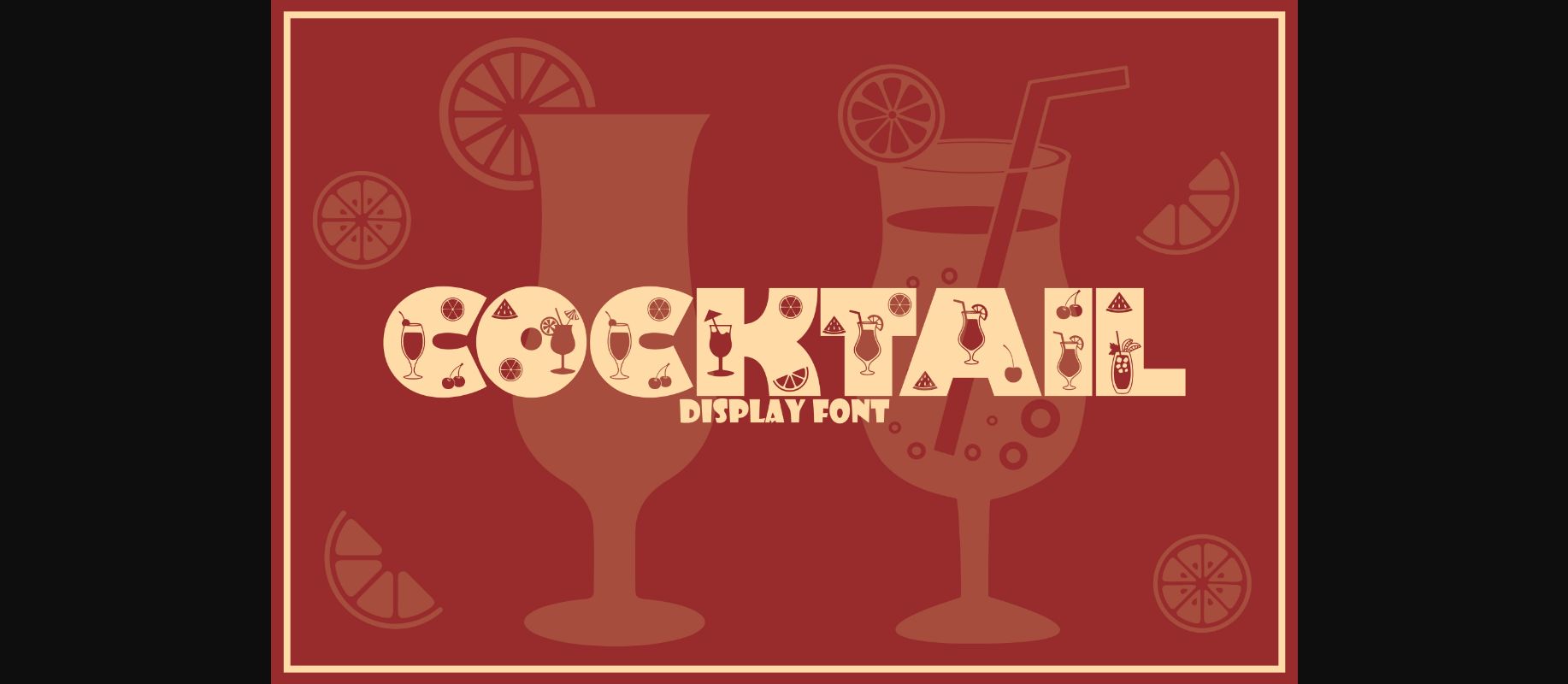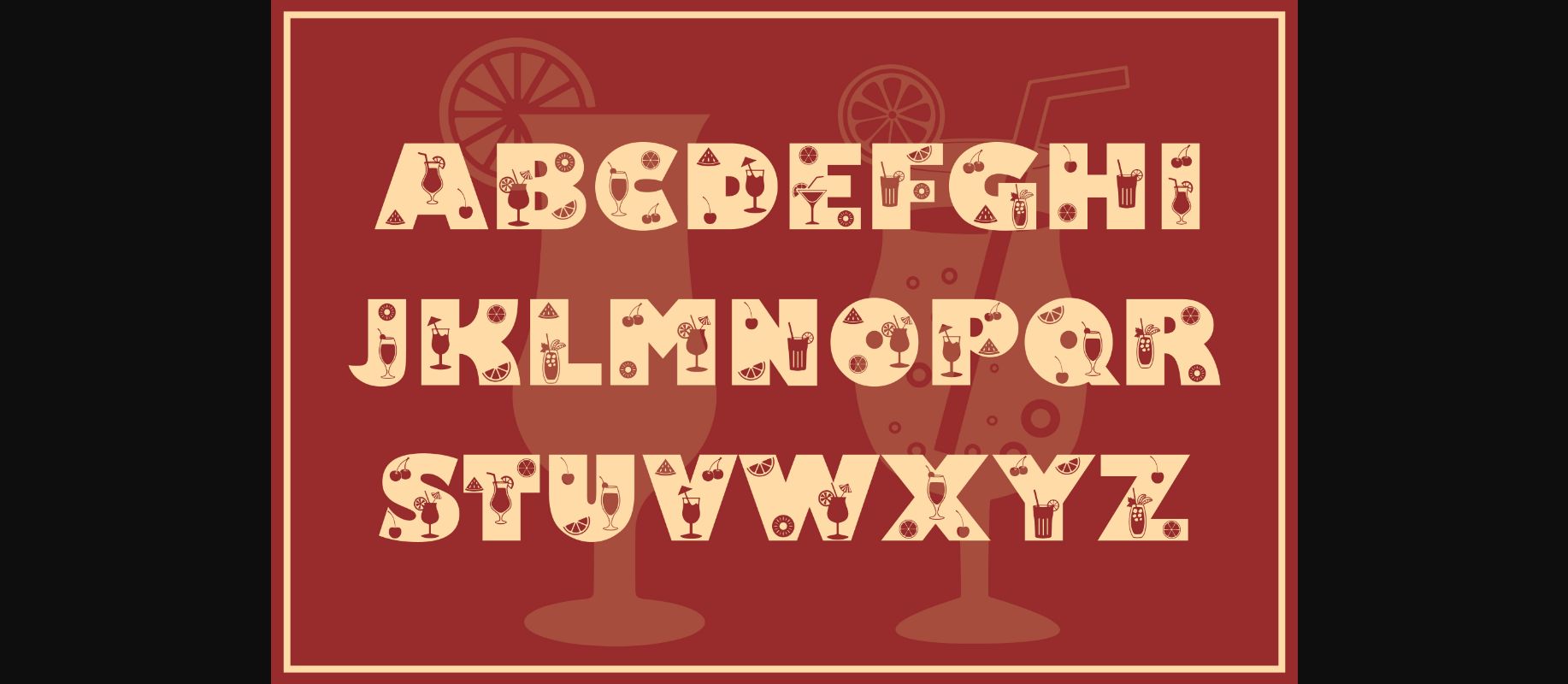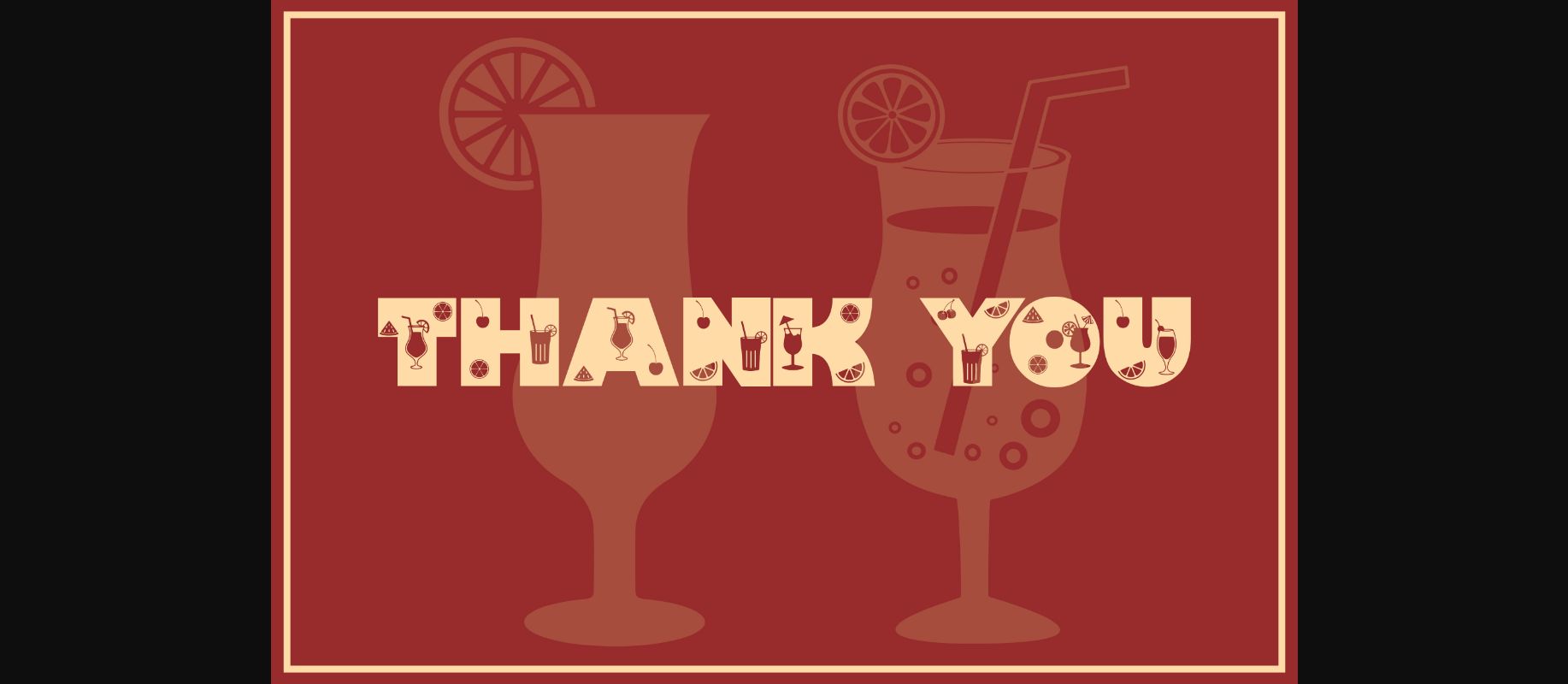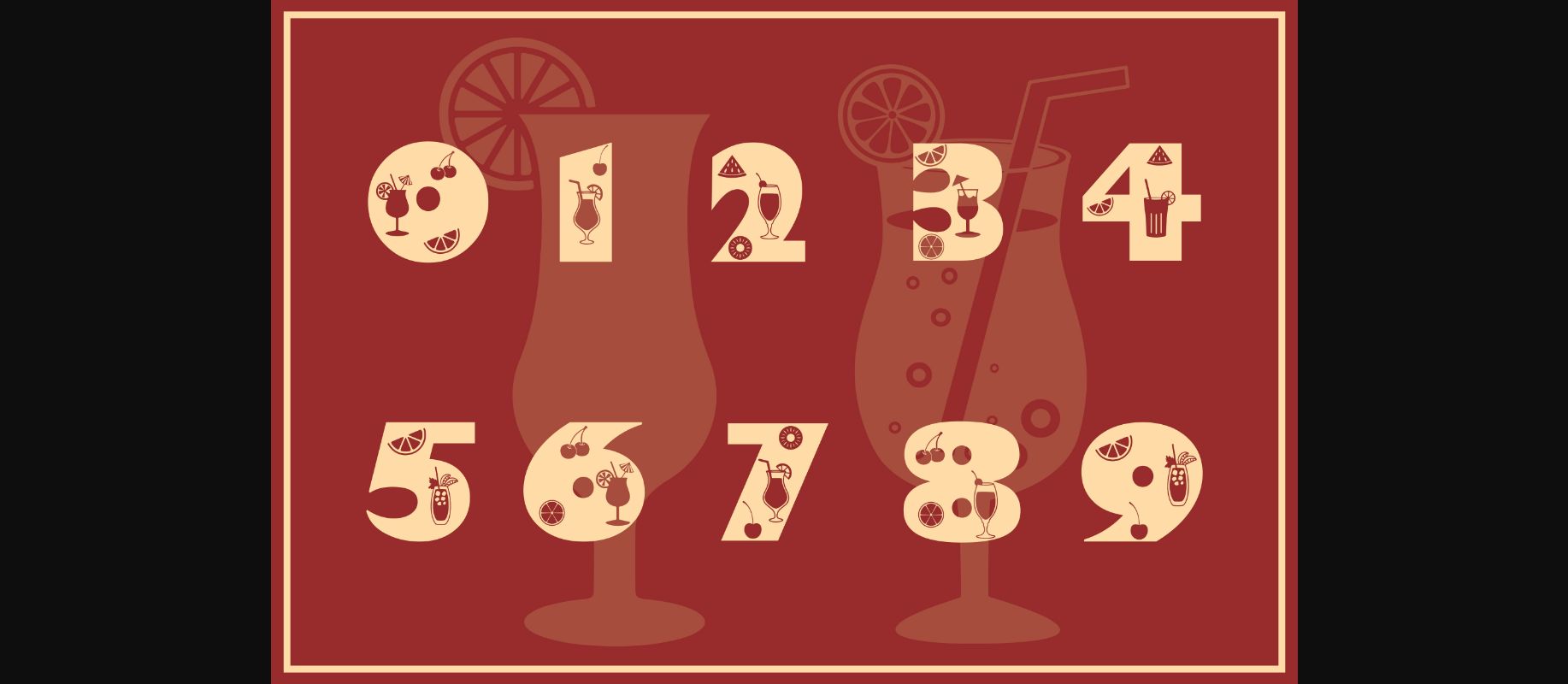
Cocktail is a fun and girly decorative display font. It is perfectly suitable for any design or crafty idea! Add it confidently to your projects and you will love the results!